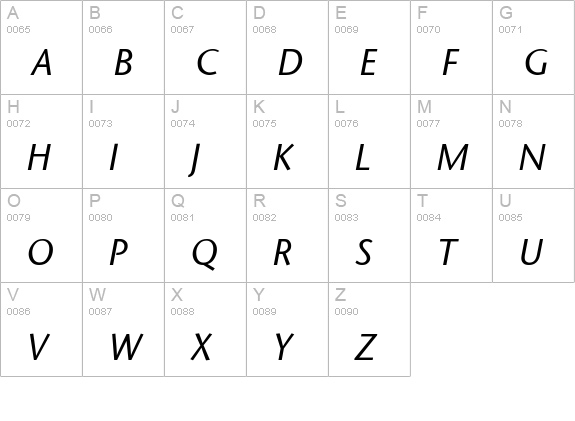
SapirSeasItalic Font Details
Introducing SapirSeasItalic, a breathtaking font that seamlessly combines elegance and playfulness. With its unique and flowing letterforms, this typeface exudes a sense of sophistication while exuding a hint of whimsy. Each character in SapirSeasItalic has been meticulously crafted, showcasing intricate details that are sure to captivate the eye. The curved strokes and graceful curves bring a sense of fluidity, creating a harmonious balance between each letter. Whether used in a headline, body text, or branding project, SapirSeasItalic effortlessly enhances any design with its timeless charm. Its versatility allows it to be suitable for a wide range of applications, from wedding invitations to product packaging to editorial layouts. What sets SapirSeasItalic apart is not only its aesthetic appeal but also its accessibility. This font is available for free download at FontsMarket.com, making it easily accessible to designers, artists, and enthusiasts alike. Now, you can bring this exquisite font into your creative projects without any restrictions. Embrace the elegance and versatility of SapirSeasItalic, and let your designs shine with a touch of sophistication. Download this font today from FontsMarket.com and unlock a world of possibilities for your next creative endeavor.